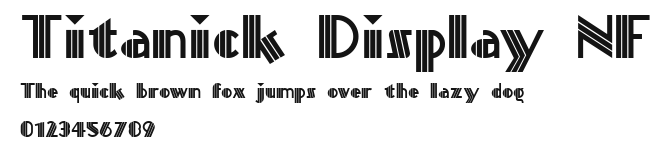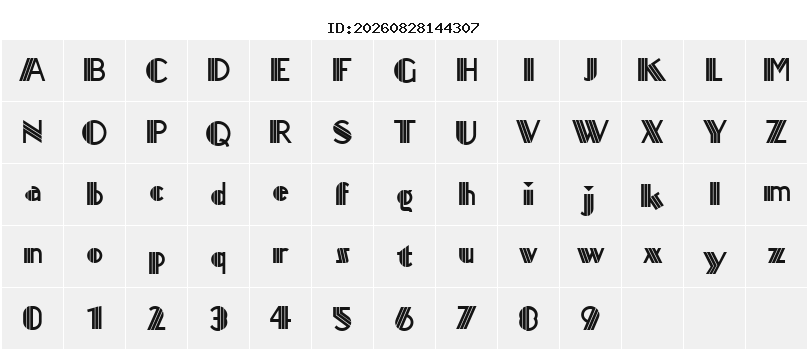
• Font Name: Titanick Display NF
• Full Font Name: Titanick Display NF
• Designer: Nick Curtis
• Manufacturer: Nick's Fonts
About Titanick Display NF.ttf
Titanick Display NF.ttf is a modern, elegant sans-serif font designed for ultimate readability and visual harmony. Perfect for branding, headlines, web design, and print materials.